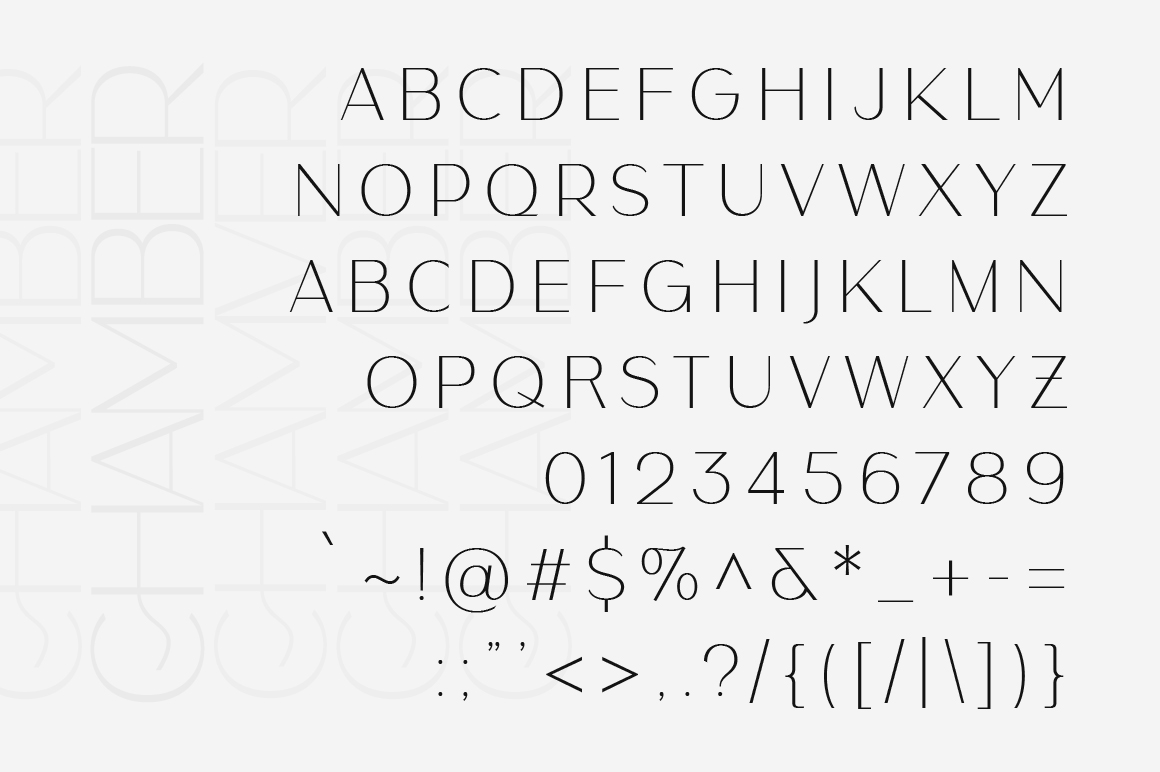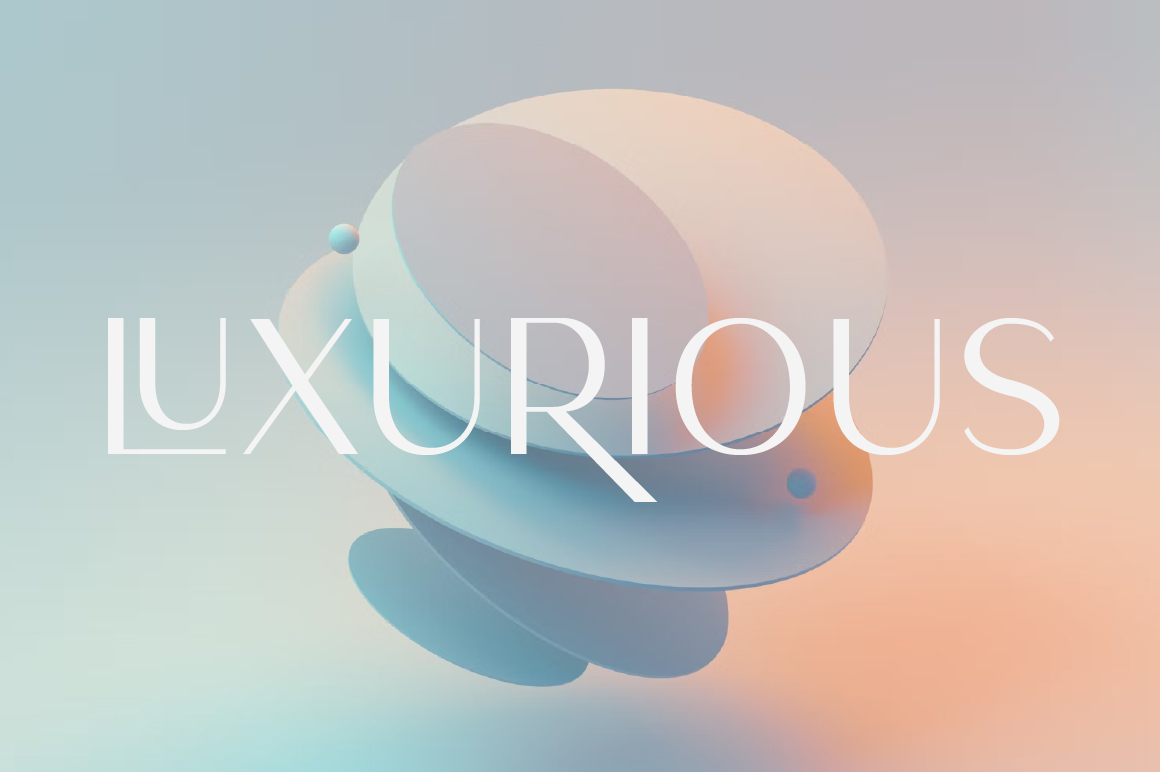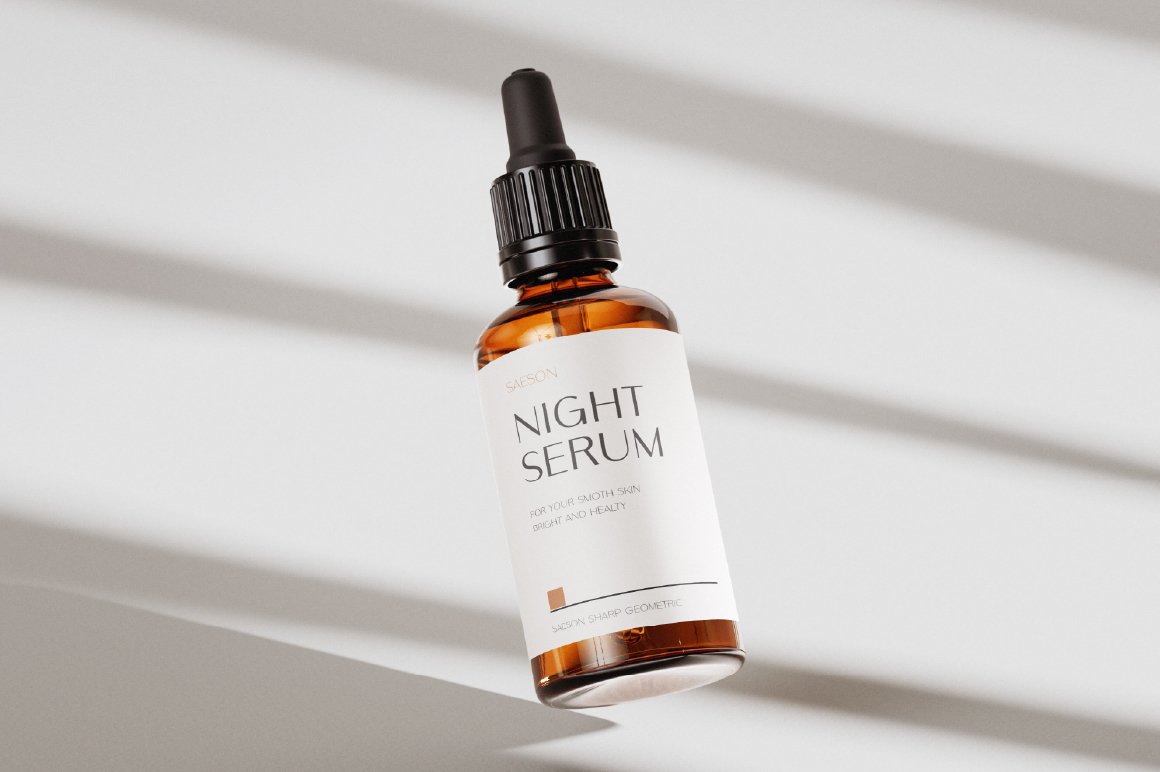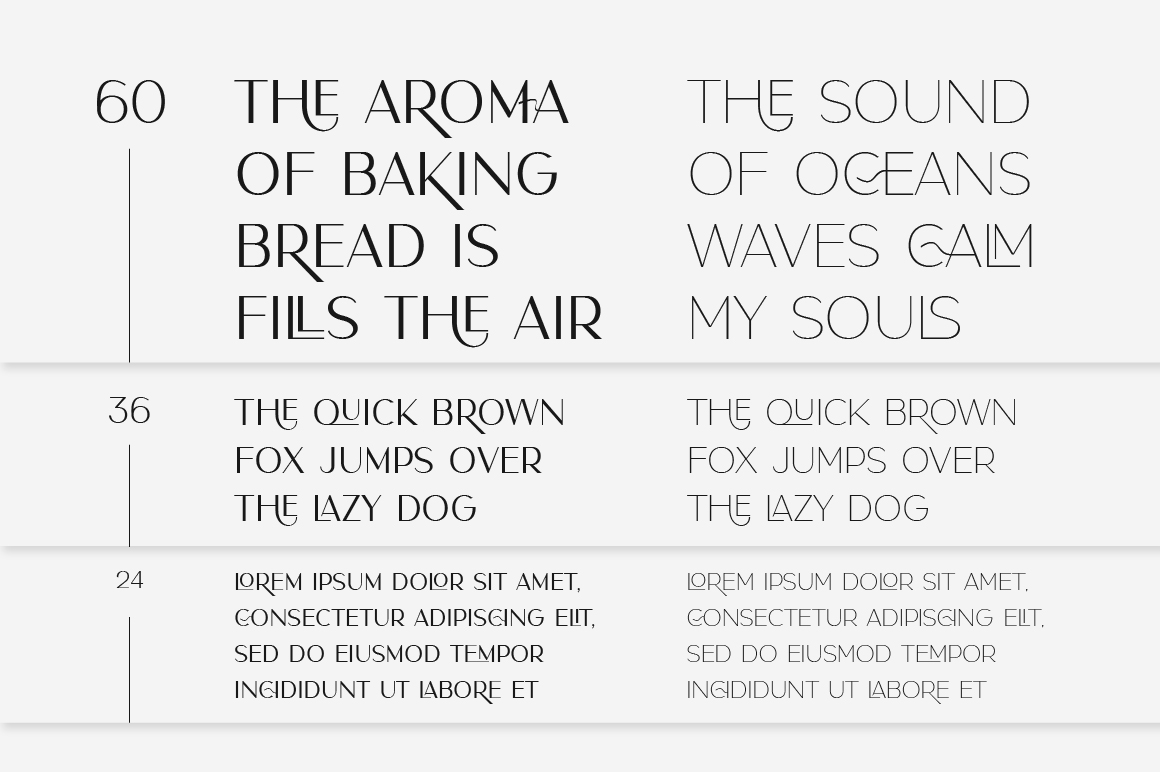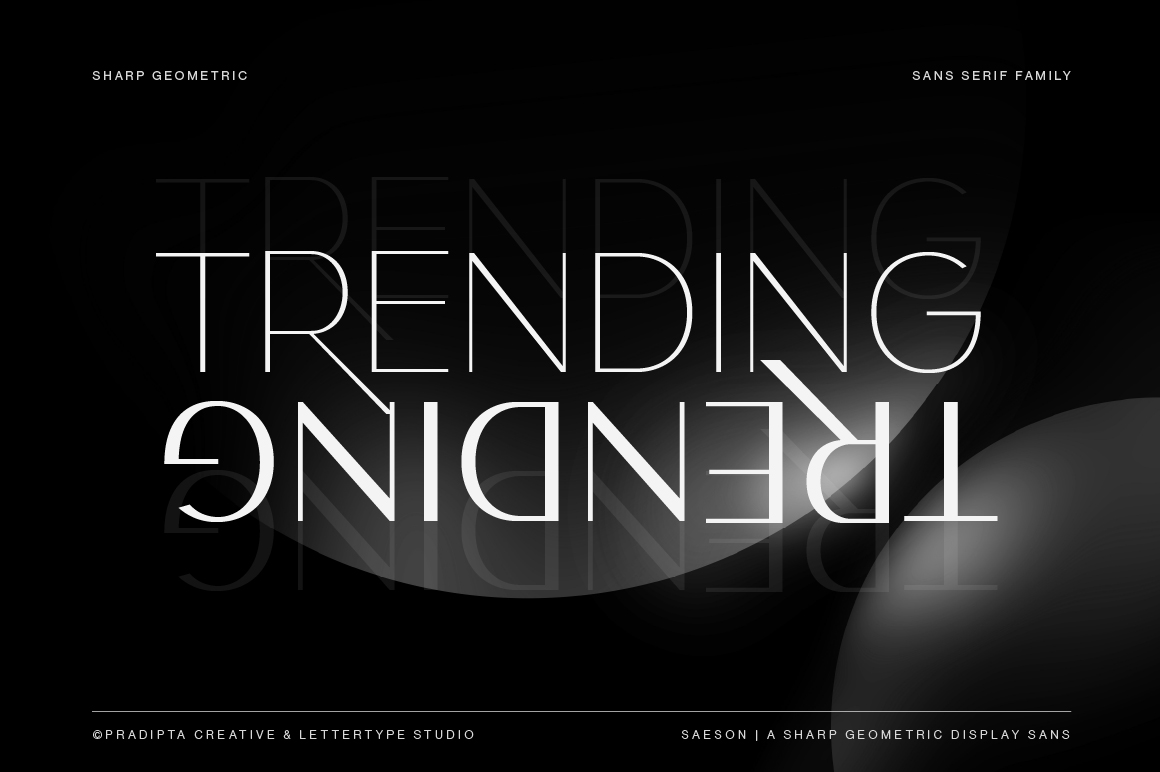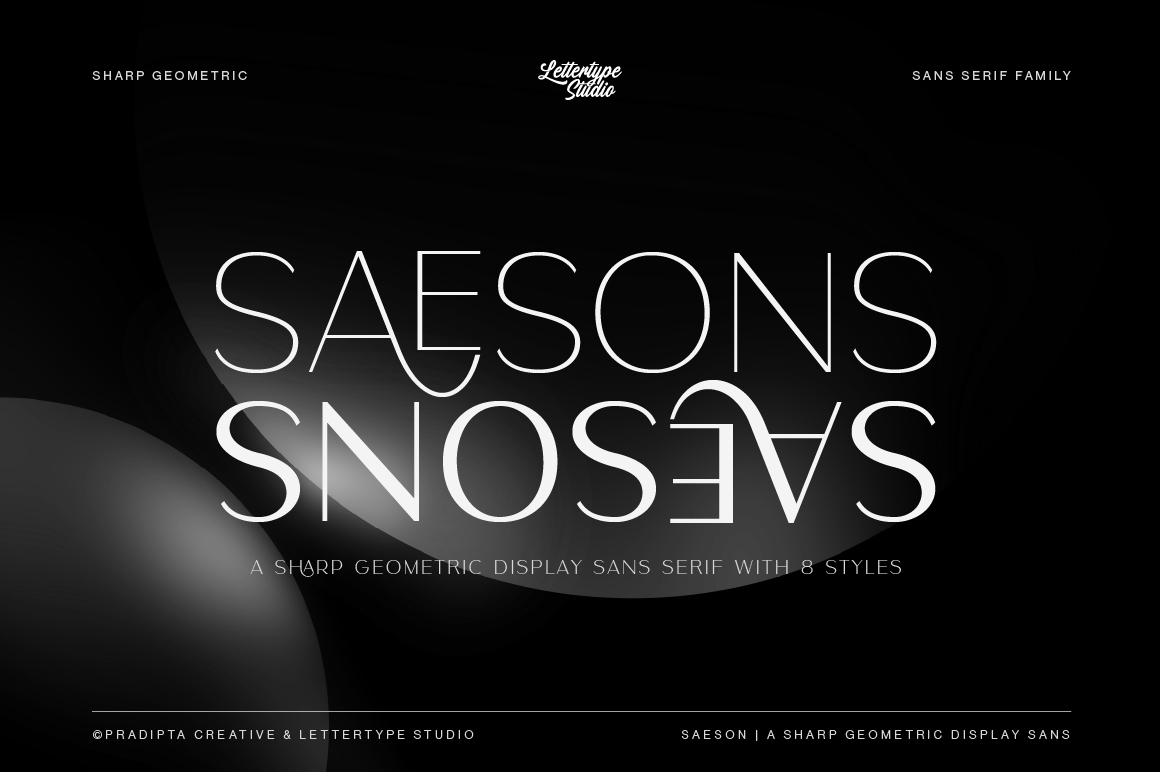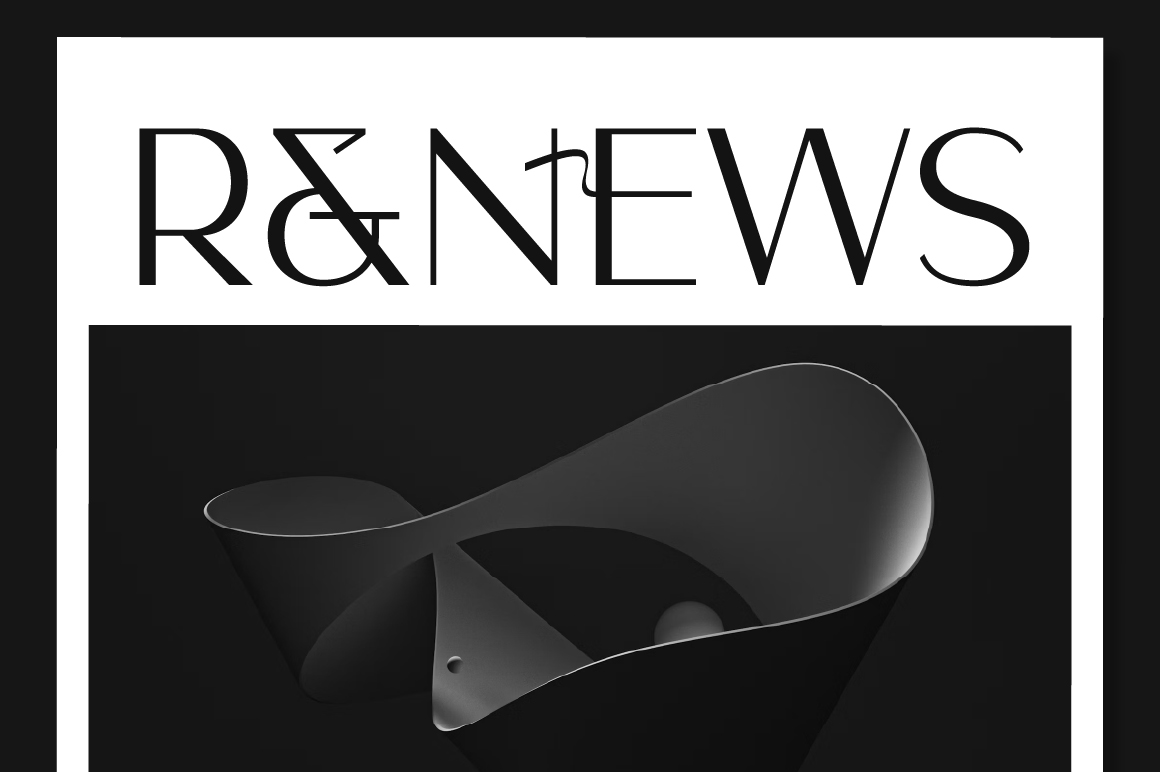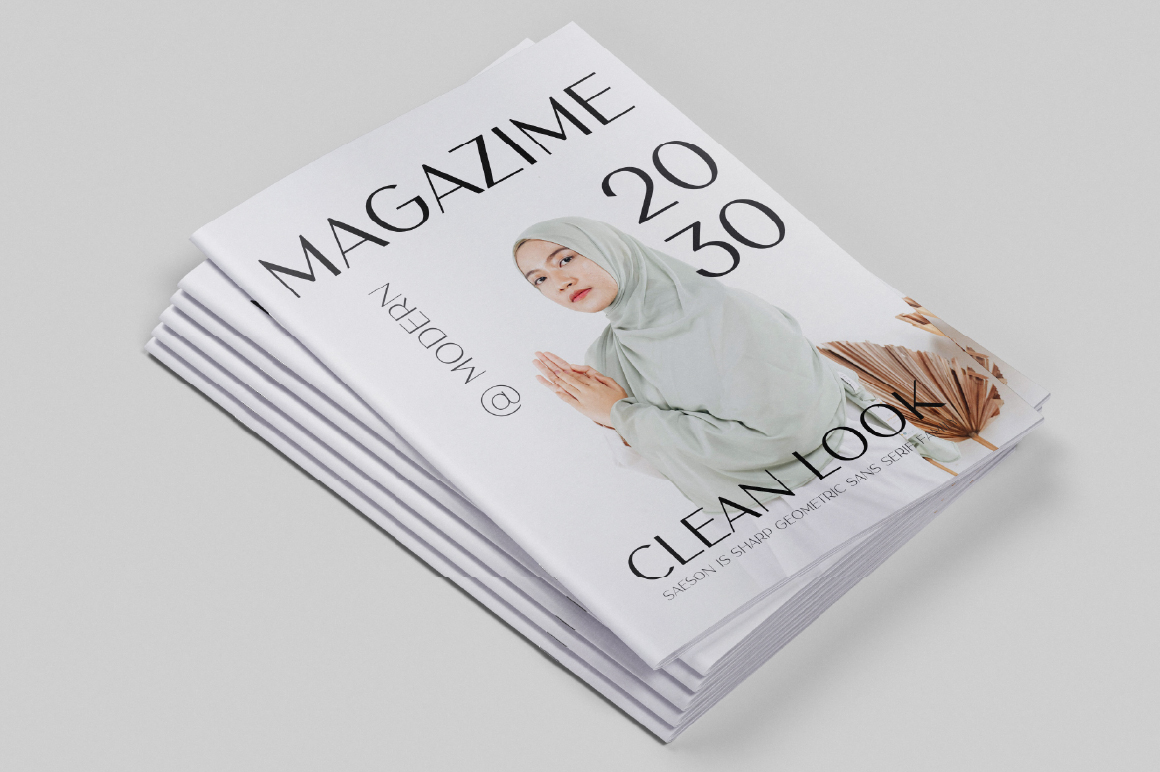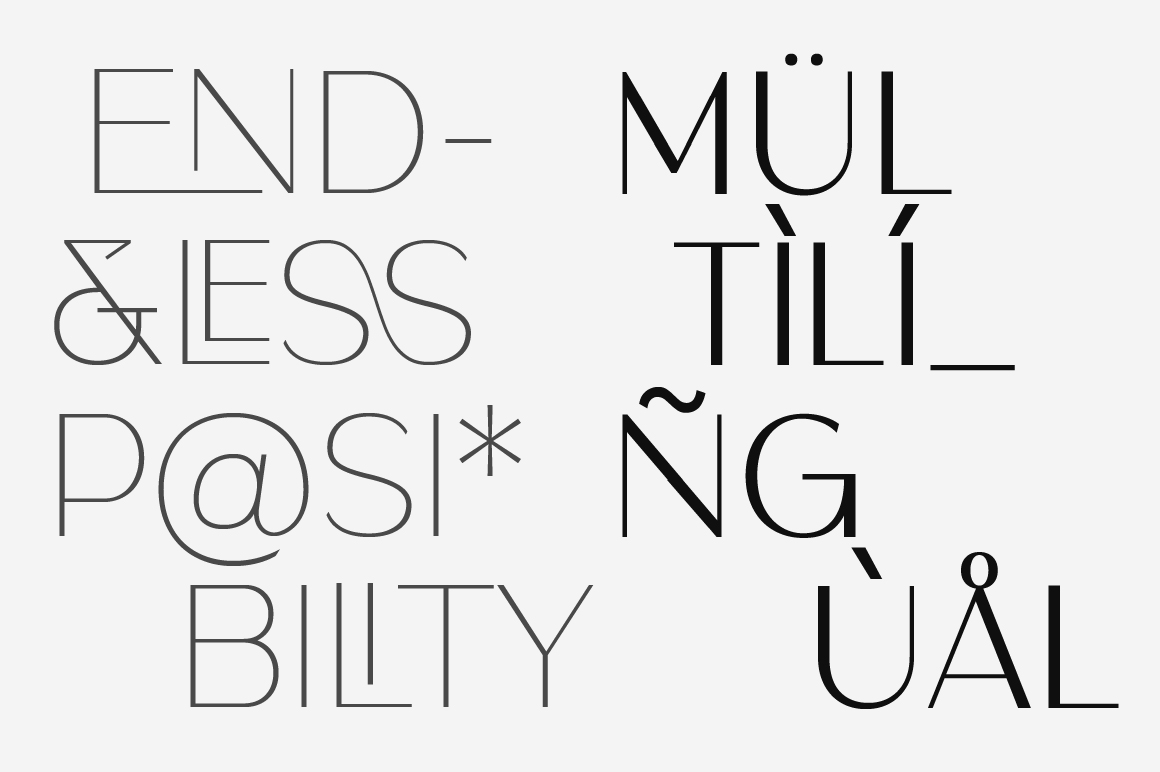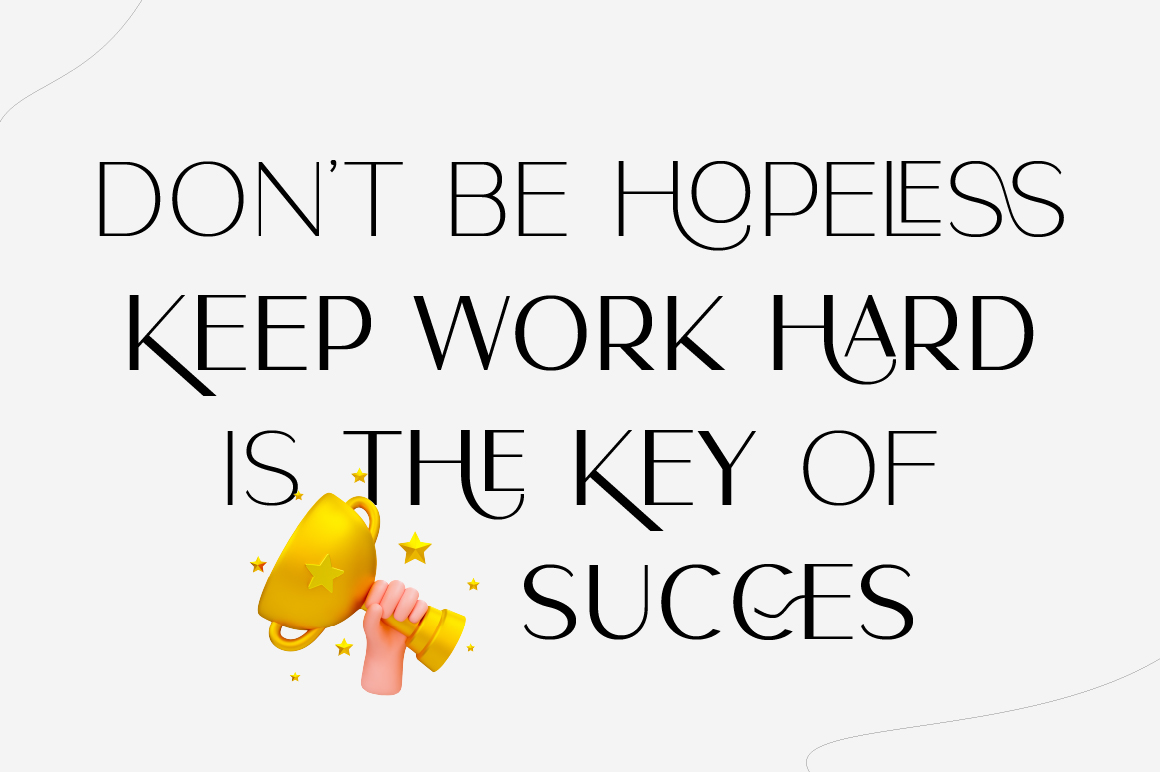
Saeson - Thin
Saeson - ExtraLight
Saeson - Light
Saeson - Regular
Saeson - Medium
Saeson - SemiBold
Saeson - Bold
Saeson - ExtraBold
Saeson is a sharp geometric display sans serif font designed for versatility and precision. With over 80 alternate glyphs and 8 font styles, it gives you full control to craft distinctive and modern visual identities. Its clean lines and angular cuts make it ideal for designers who value structure and sharp aesthetics.
Perfect for headers, digital layouts, and contemporary branding, Saeson combines bold form with refined balance. Supporting over 260 languages and 476 glyphs, it’s built for global use while maintaining a sleek, professional tone in any creative project.
Saeson Features:
• 8 font styles
• 80+ alternate glyphs
• 476 glyphs
• 260+ languages support
• Bold logos, creative wordmarks & standout headlines
• Fashion branding, lifestyle packaging & digital posters
• Web design, social media graphics & visual identities
• Invitations, stationery, and artistic product design
• Modern editorial layouts & promotional campaigns
Saeson